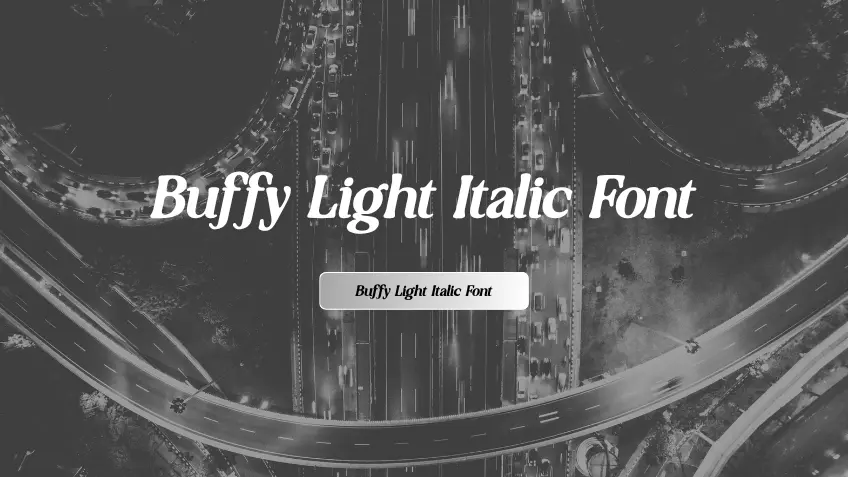
The font Buffy Light Italic, designed by Taboja Studio, falls under the Display, Serif category & Buffy font family. Its smooth, flowing letterforms make it a versatile choice for projects that require both elegance and readability. Buffy is particularly well-suited for Headlines, Magazine, Event Posters, Social media graphics, Logos, Retro Gaming: and Labels. With its balance of simplicity and decorative appeal, this font brings a polished touch to both personal and professional designs.